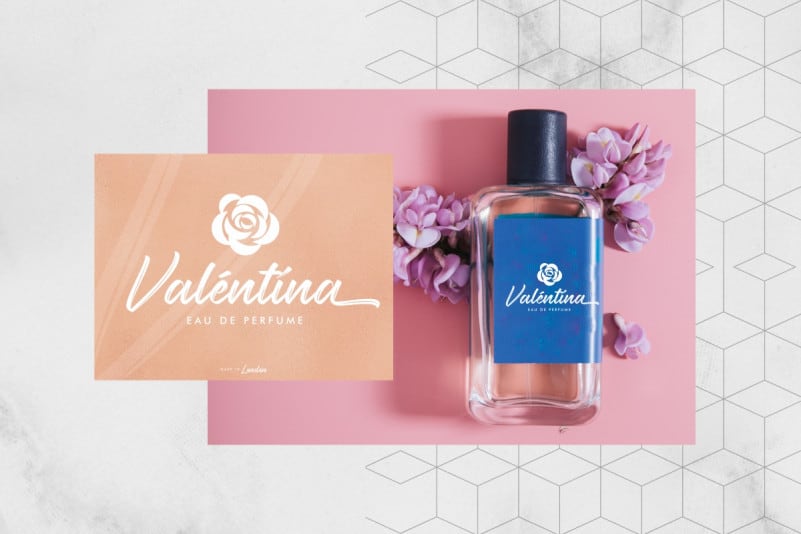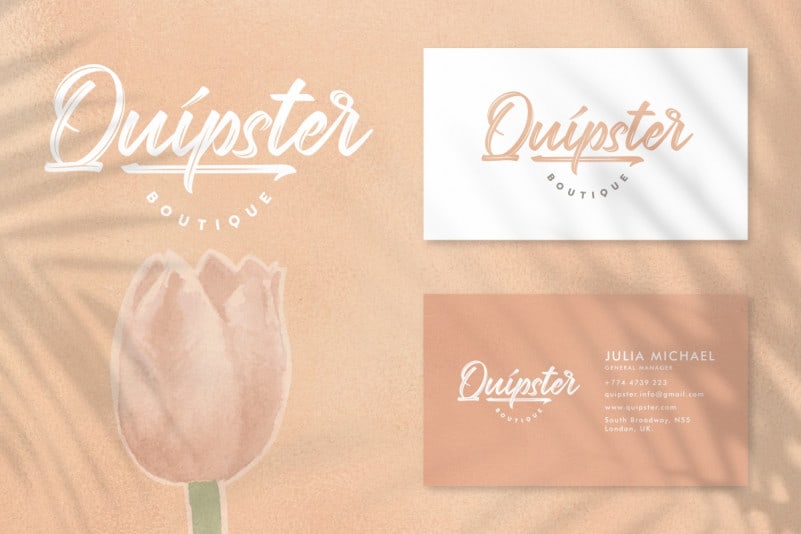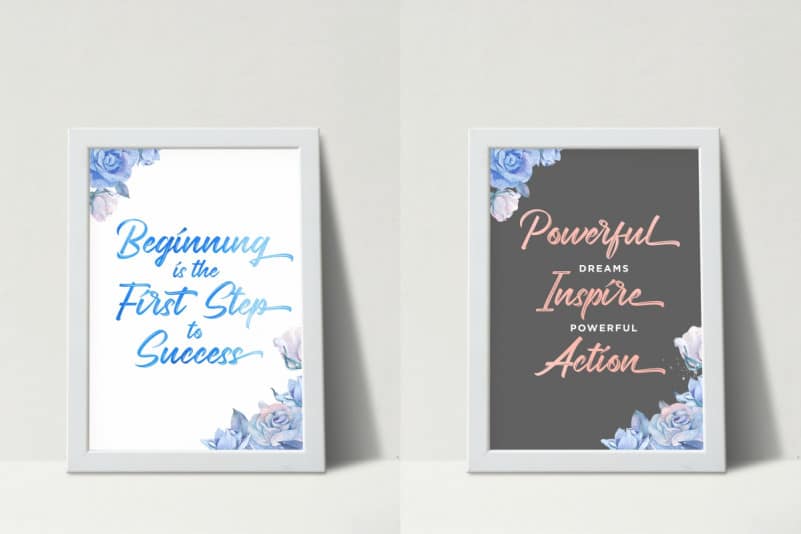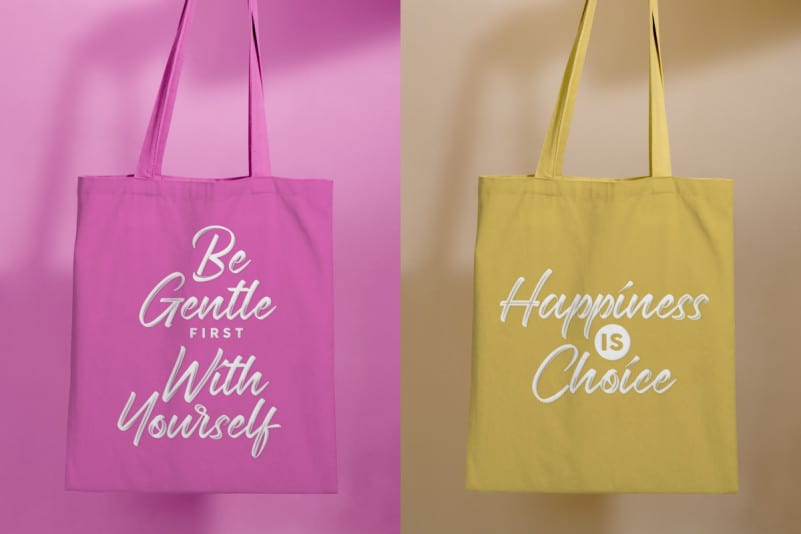
Ridleys Brush Font
Ridleys Brush Font is a textured handmade brush font. The style of this font are stylish, classic, elegant, vintage and strong brush font.